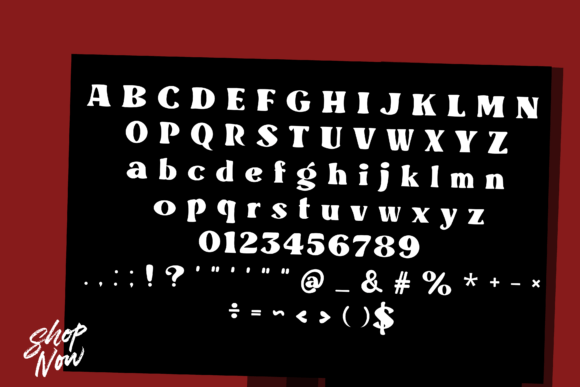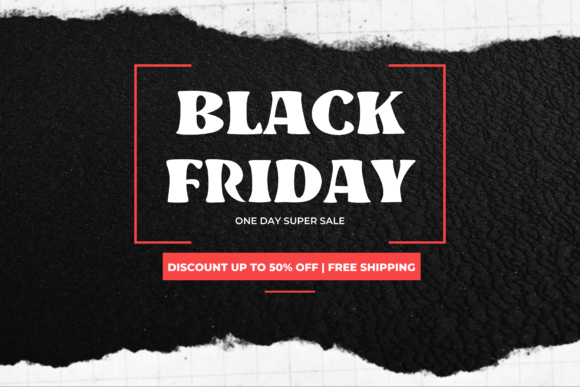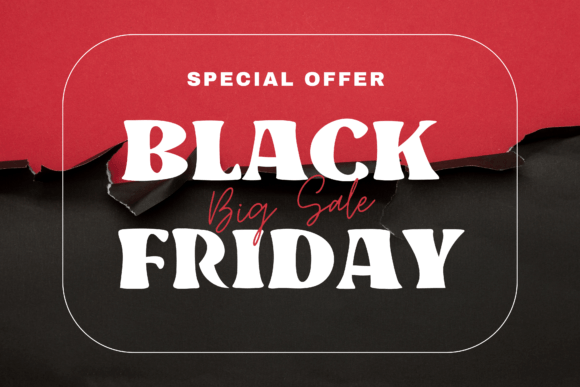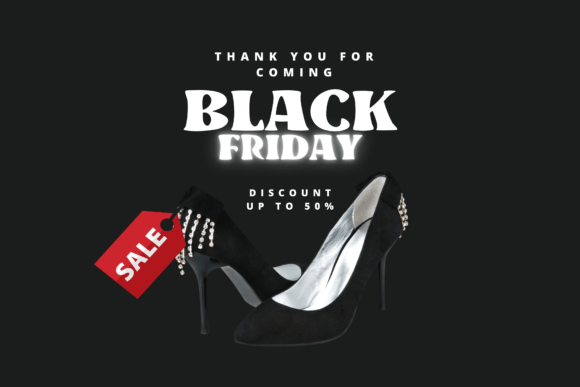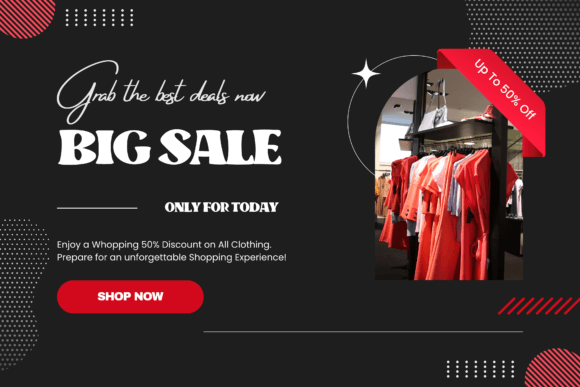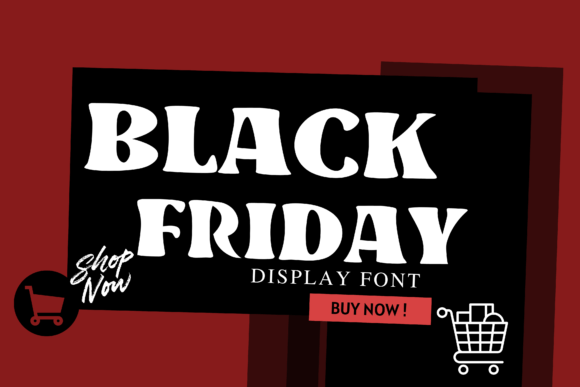
Black Friday Font: Elevate Your Designs with this Stunning Display Font
Are you on the hunt for a font that adds a touch of sophistication and elegance to your designs? Look no further than the Black Friday Font! This display font is perfect for a wide range of creative projects, from personal notes and greeting cards to bold banners and social media posts. In this article, we’ll dive into the world of Black Friday Font and explore its endless possibilities.
What is Black Friday Font?
Black Friday Font is a display font designed to make a statement. Its sleek and modern aesthetic makes it perfect for adding a touch of luxury to any design. The font is highly legible, making it suitable for both short and long texts. Whether you’re a designer, crafter, or DIY enthusiast, Black Friday Font is an excellent addition to your font collection.
Uses of Black Friday Font
Black Friday Font is an incredibly versatile font that can be used for a wide range of projects. Here are some ideas to get you started:
- Personal Notes and Writing: Use Black Friday Font to add a touch of elegance to your notes, journals, and diaries.
- Greeting Cards: Create stunning greeting cards for special occasions, such as birthdays, weddings, and holidays.
- Banners and Signs: Make a statement with bold and eye-catching banners and signs for events, sales, or promotions.
- Social Media Posts: Elevate your social media game with stylish and attention-grabbing posts.
- Mugs and Water Bottles: Add a personal touch to your drinkware with custom designs featuring Black Friday Font.
- T-Shirts and Apparel: Create stylish and trendy apparel with Black Friday Font.
- Stationery and Paper Crafts: Use Black Friday Font to add a touch of sophistication to your stationery, paper crafts, and DIY projects.
Why Choose Black Friday Font?
So, what sets Black Friday Font apart from other fonts? Here are some reasons why you should choose Black Friday Font for your next project:
- Unique and Modern Design: Black Friday Font features a sleek and modern design that’s sure to turn heads.
- Highly Legible: The font is highly legible, making it suitable for both short and long texts.
- Versatile: Black Friday Font can be used for a wide range of projects, from personal notes to bold banners.
- Easily Customizable: The font can be easily customized to fit your design needs.
Tips for Using Black Friday Font
Here are some tips for getting the most out of Black Friday Font:
- Experiment with Font Sizes: Play around with different font sizes to create visual interest and hierarchy.
- Pair with Other Fonts: Pair Black Friday Font with other fonts to create a unique and stylish combination.
- Use for Headings and Titles: Use Black Friday Font for headings and titles to add a touch of elegance and sophistication.
- Add a Pop of Color: Add a pop of color to your design with Black Friday Font to make it stand out.
Black Friday Font is a stunning display font that’s perfect for designers, crafters, and DIY enthusiasts. Its sleek and modern aesthetic makes it suitable for a wide range of creative projects, from personal notes and greeting cards to bold banners and social media posts. With its high legibility, versatility, and ease of customization, Black Friday Font is an excellent addition to any font collection. So why wait? Download Black Friday Font today and elevate your designs to the next level!